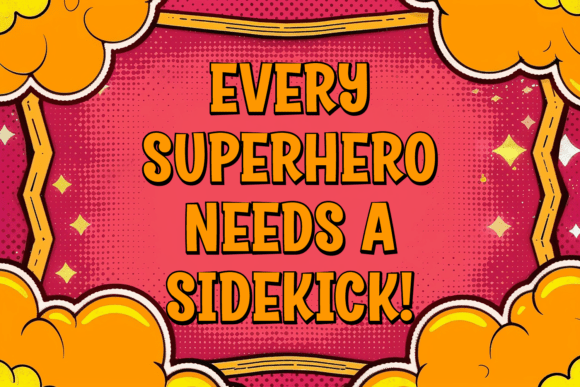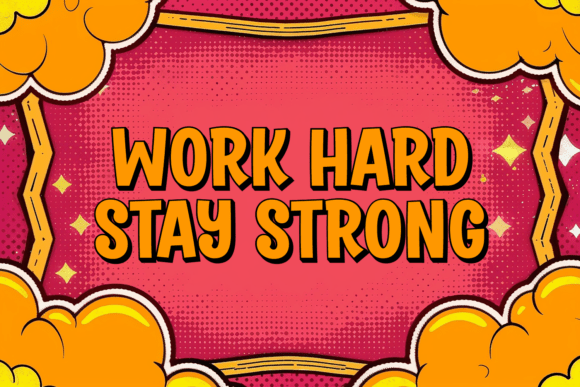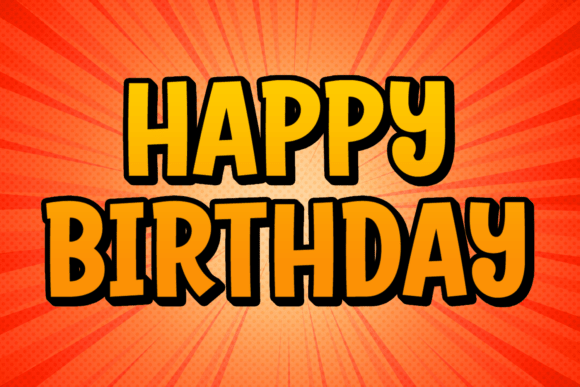
Introduction to Cartoon Fantasy Font
Introducing the Cartoon Fantasy font is a one-of-a-kind display font teeming with life and energy.
This unique font flawlessly captures the lively spirit of comics and the whimsical essence of cartoons It is crafted to be exceptionally strong and bold, making a head-turning statement in any headline or title.
Key Features of Cartoon Fantasy Font
Why Choose Cartoon Fantasy Font?